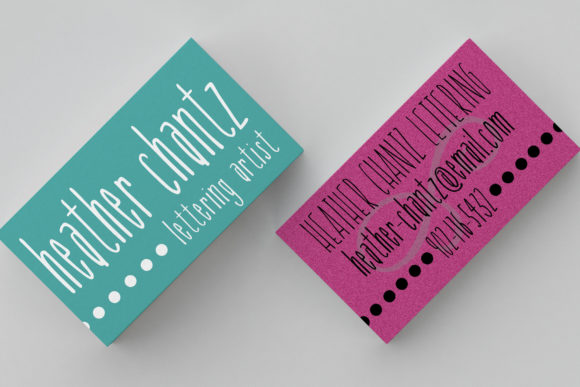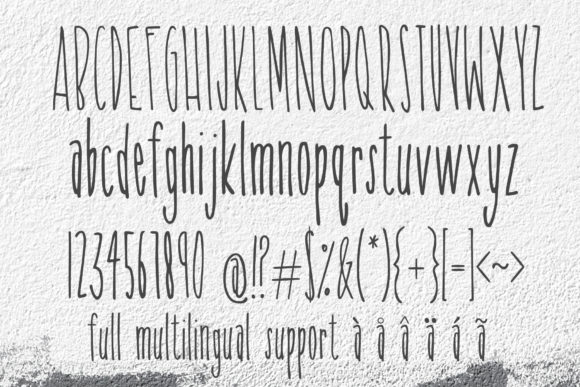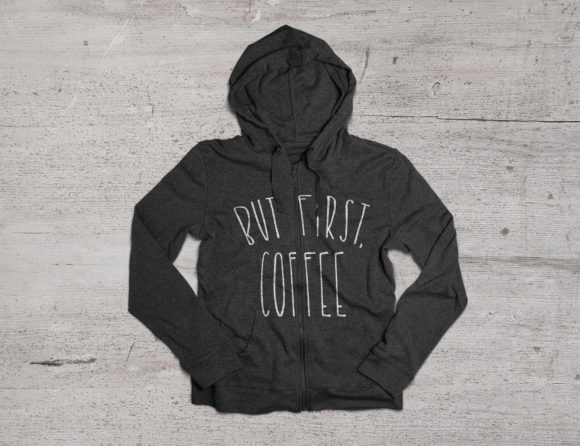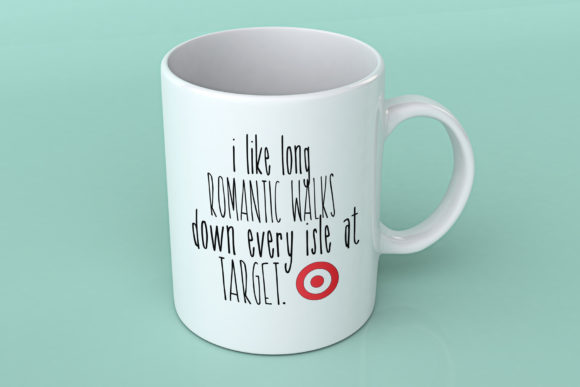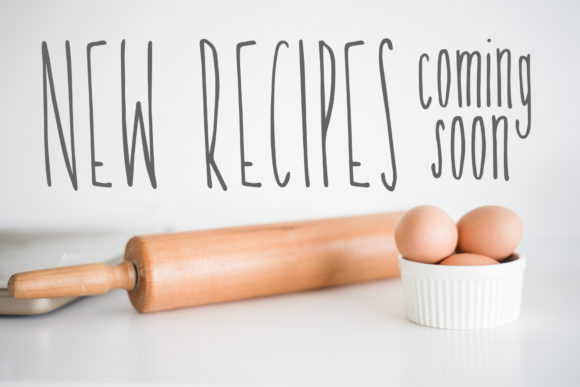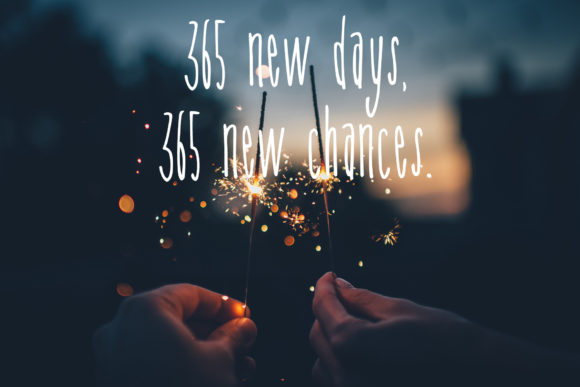
Cascade Font: Elevate Your Creative Projects with a Cool and Crafty Handwritten Style
Are you a designer, crafter, or DIY enthusiast looking for a unique and artistic font to bring your creative projects to life? Look no further than Cascade Font, a cool and crafty handwritten font that’s perfect for a variety of applications. In this article, we’ll explore the features and benefits of Cascade Font, and show you how it can help you turn your creative ideas into stunning works of art.
What is Cascade Font?
Cascade Font is a beautifully designed handwritten font that’s perfect for anyone looking to add a touch of elegance and sophistication to their creative projects. With its unique and artistic style, Cascade Font is ideal for a wide range of applications, from social media graphics and Instagram posts to calligraphy scripts and DIY projects.
Key Features of Cascade Font
- Handwritten style: Cascade Font features a beautiful, handwritten style that’s perfect for adding a personal touch to your creative projects.
- Cool and crafty vibe: With its unique and artistic style, Cascade Font has a cool and crafty vibe that’s sure to appeal to designers, crafters, and DIY enthusiasts.
- High-quality design: Cascade Font is designed with high-quality craftsmanship in mind, ensuring that your creative projects look professional and polished.
- Versatile: Whether you’re looking for fonts for Instagram, calligraphy scripts for DIY projects, or a unique font for your next design project, Cascade Font is the perfect choice.
Uses for Cascade Font
Cascade Font is a versatile font that can be used for a wide range of creative projects, including:
- Social media graphics: Add a touch of elegance and sophistication to your social media graphics with Cascade Font.
- Instagram posts: Stand out on Instagram with Cascade Font’s unique and artistic style.
- Calligraphy scripts: Use Cascade Font to create beautiful calligraphy scripts for DIY projects, such as wedding invitations, greeting cards, and more.
- DIY projects: Add a personal touch to your DIY projects, such as crafts, scrapbooking, and more, with Cascade Font.
- Design projects: Use Cascade Font to add a unique and artistic touch to your next design project, such as a logo, brochure, or website.
Benefits of Using Cascade Font
There are many benefits to using Cascade Font for your creative projects, including:
- Unique and artistic style: Cascade Font’s unique and artistic style is sure to make your creative projects stand out.
- Elegant and sophisticated: Add a touch of elegance and sophistication to your creative projects with Cascade Font.
- High-quality design: Cascade Font is designed with high-quality craftsmanship in mind, ensuring that your creative projects look professional and polished.
Tips for Using Cascade Font
Here are a few tips for using Cascade Font in your creative projects:
- Experiment with different colors: Cascade Font looks great in a variety of colors, so don’t be afraid to experiment and find the perfect color for your project.
- Use it with other fonts: Cascade Font pairs well with other fonts, so try using it with a bold font or a clean sans-serif font to create a unique and interesting look.
- Add embellishments: Add embellishments, such as flourishes or swashes, to give your creative projects an extra touch of elegance and sophistication.
| Font Name | Cascade Font |
| Author | dansiedesign |
Cascade Font is a cool and crafty handwritten font that’s perfect for designers, crafters, and DIY enthusiasts looking to add a unique and artistic touch to their creative projects. With its high-quality design, versatile style, and easy-to-use format, Cascade Font is the perfect choice for anyone looking to turn their creative ideas into stunning works of art.